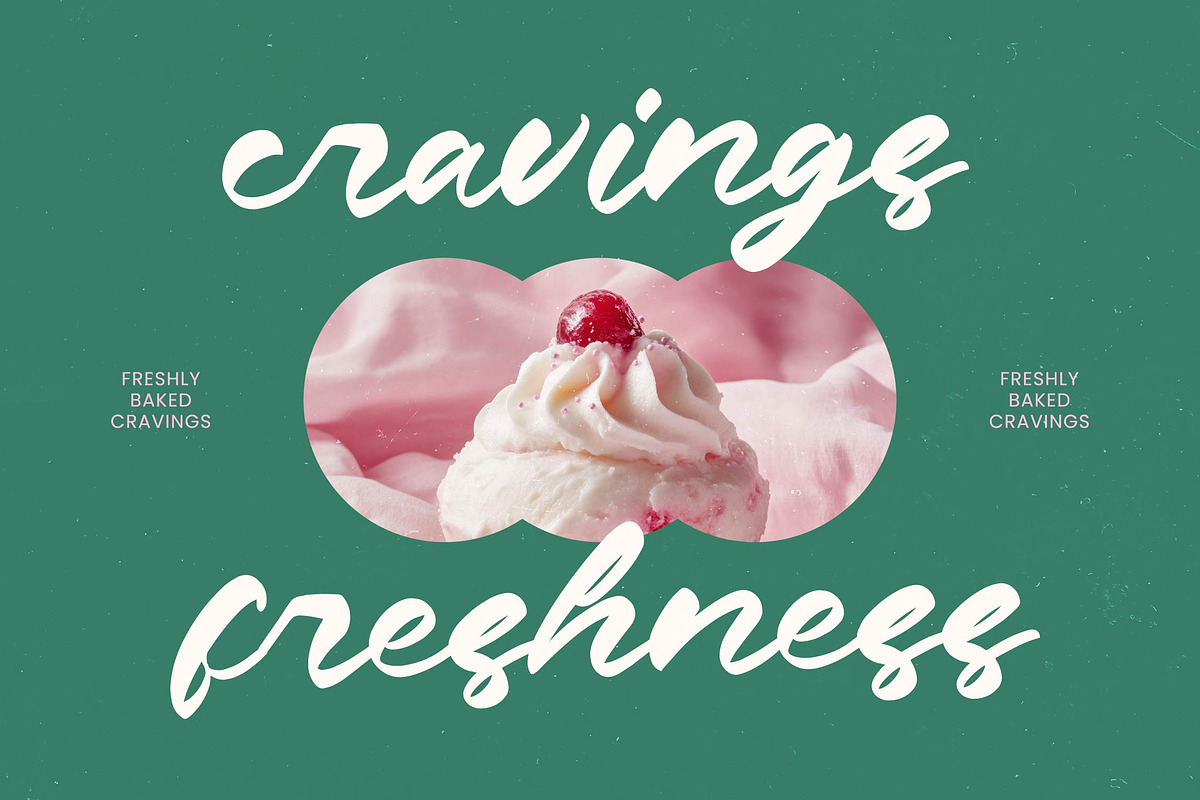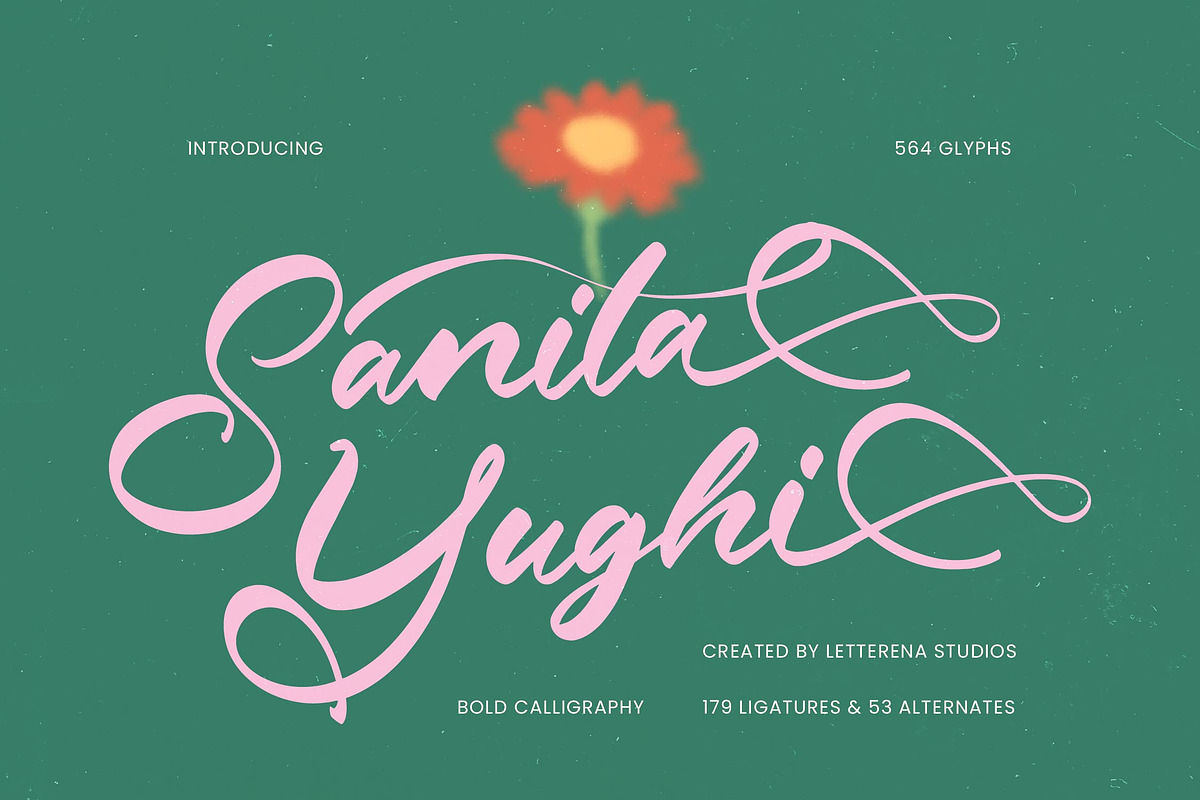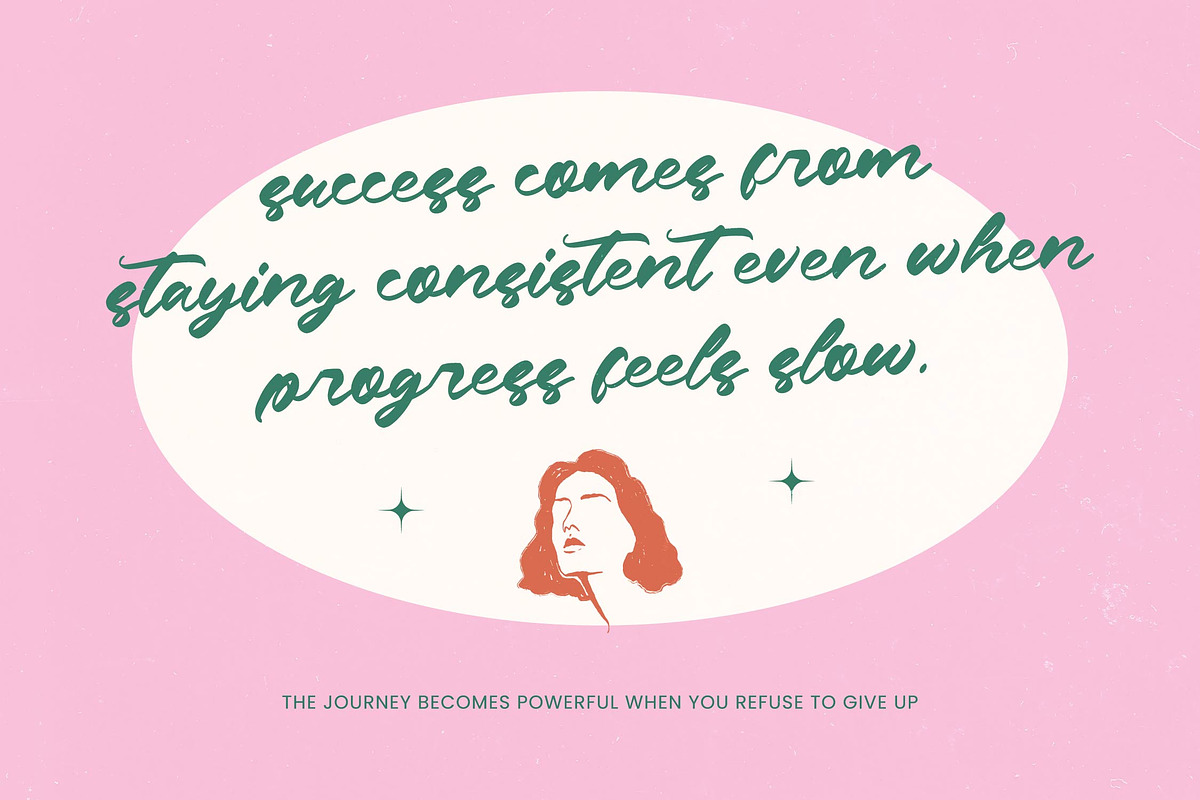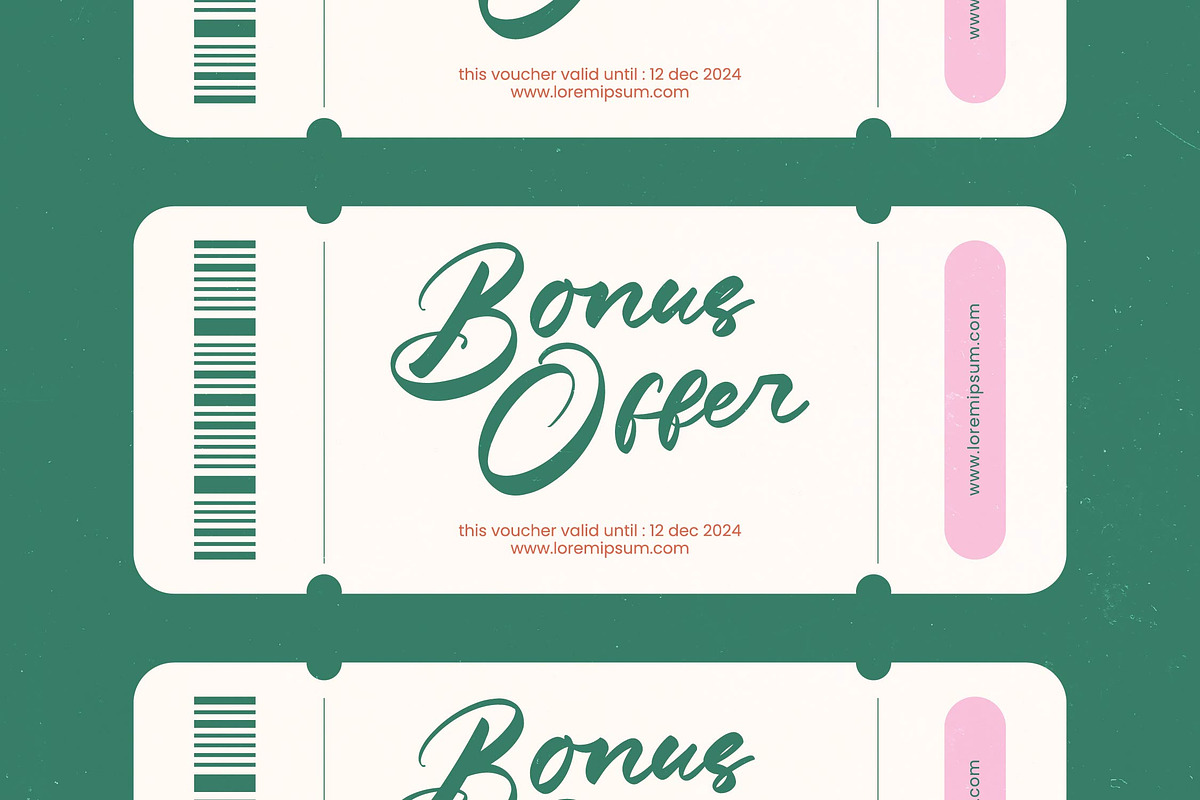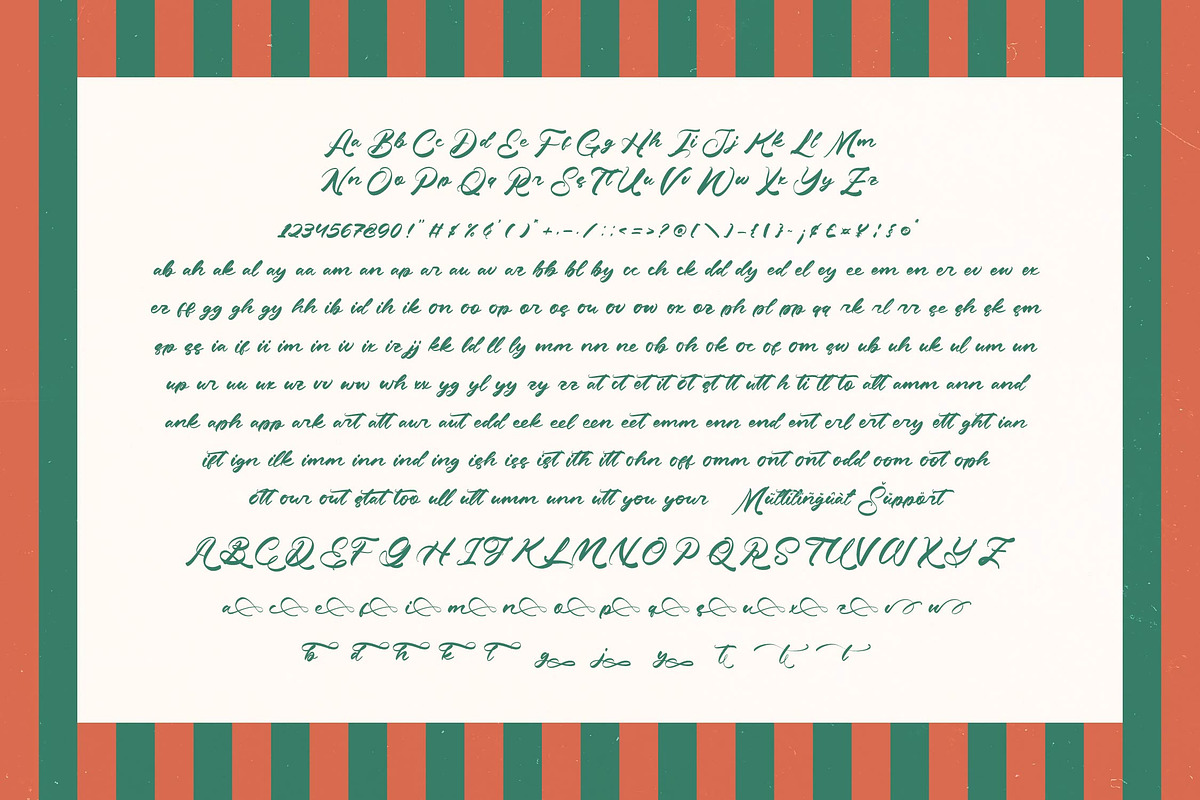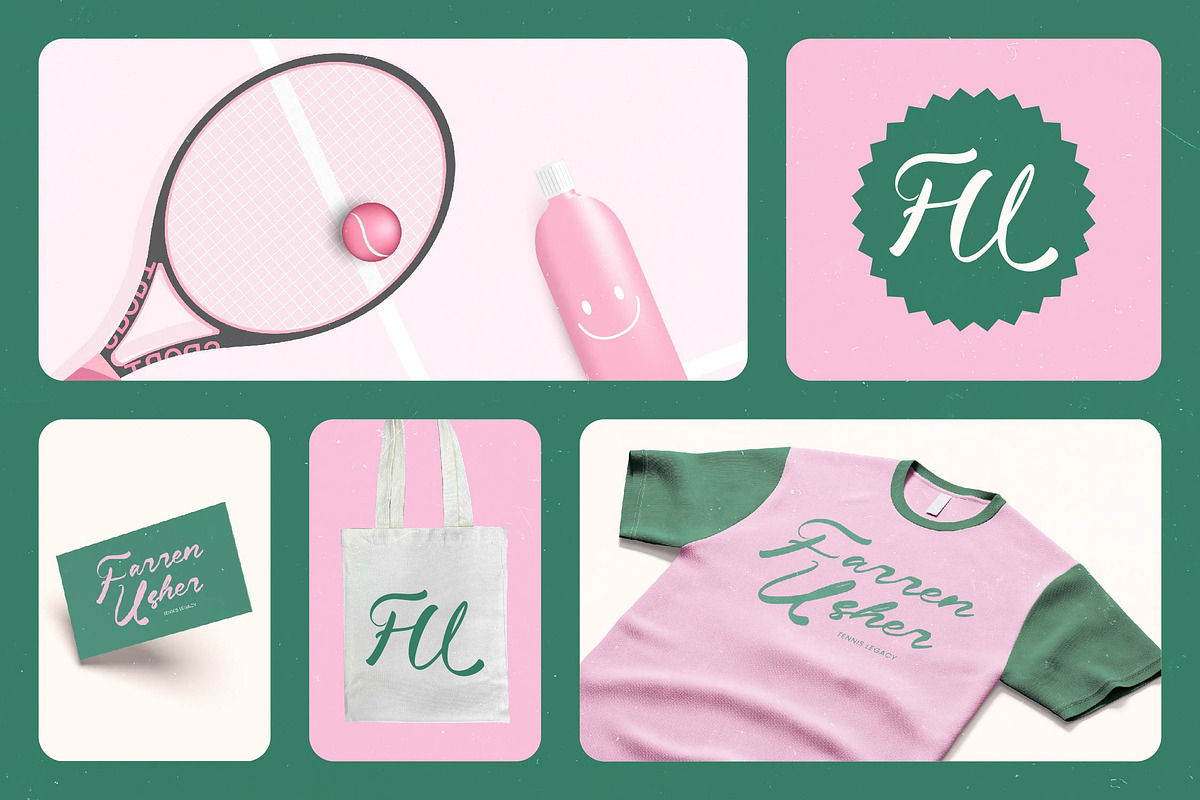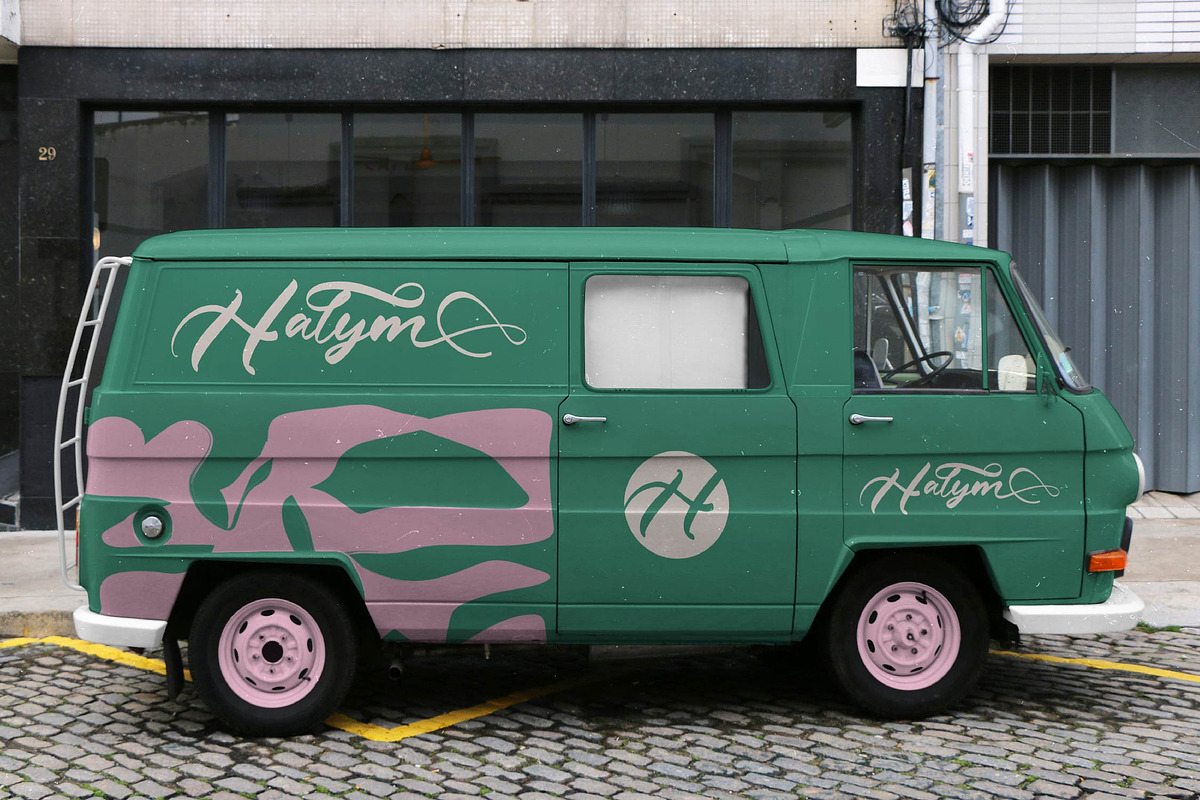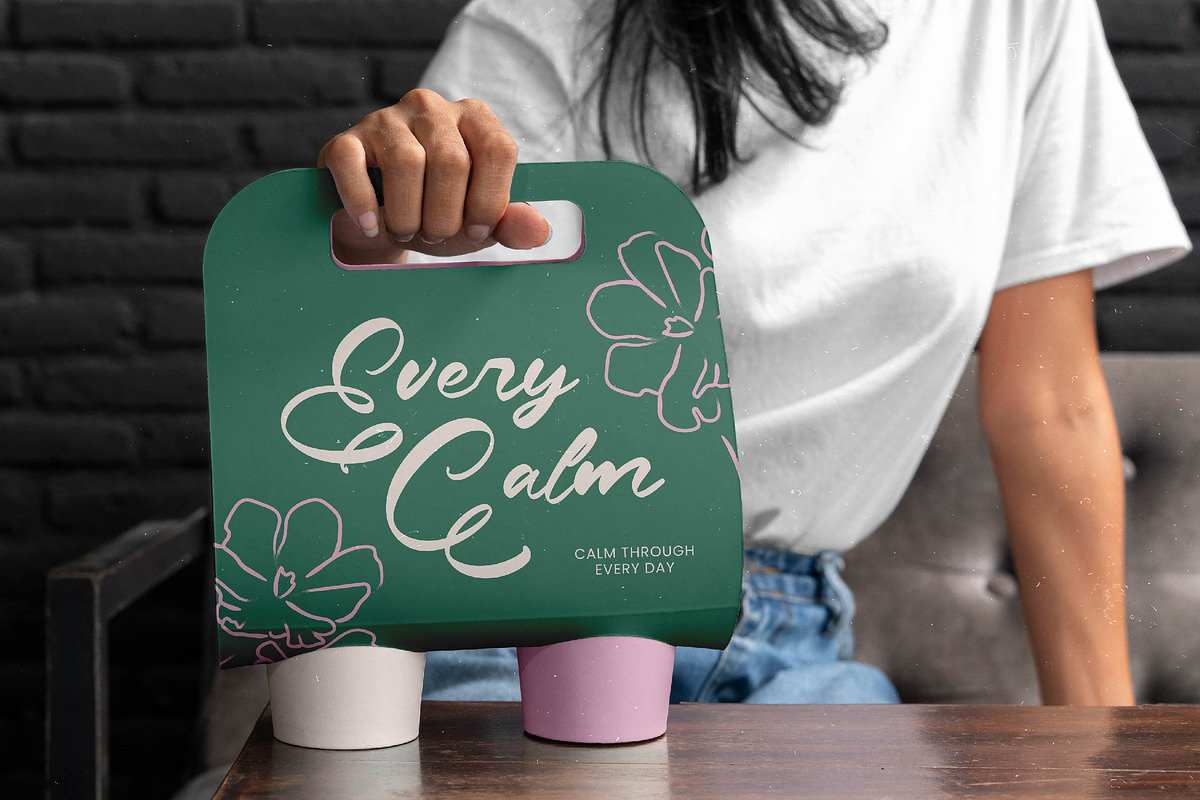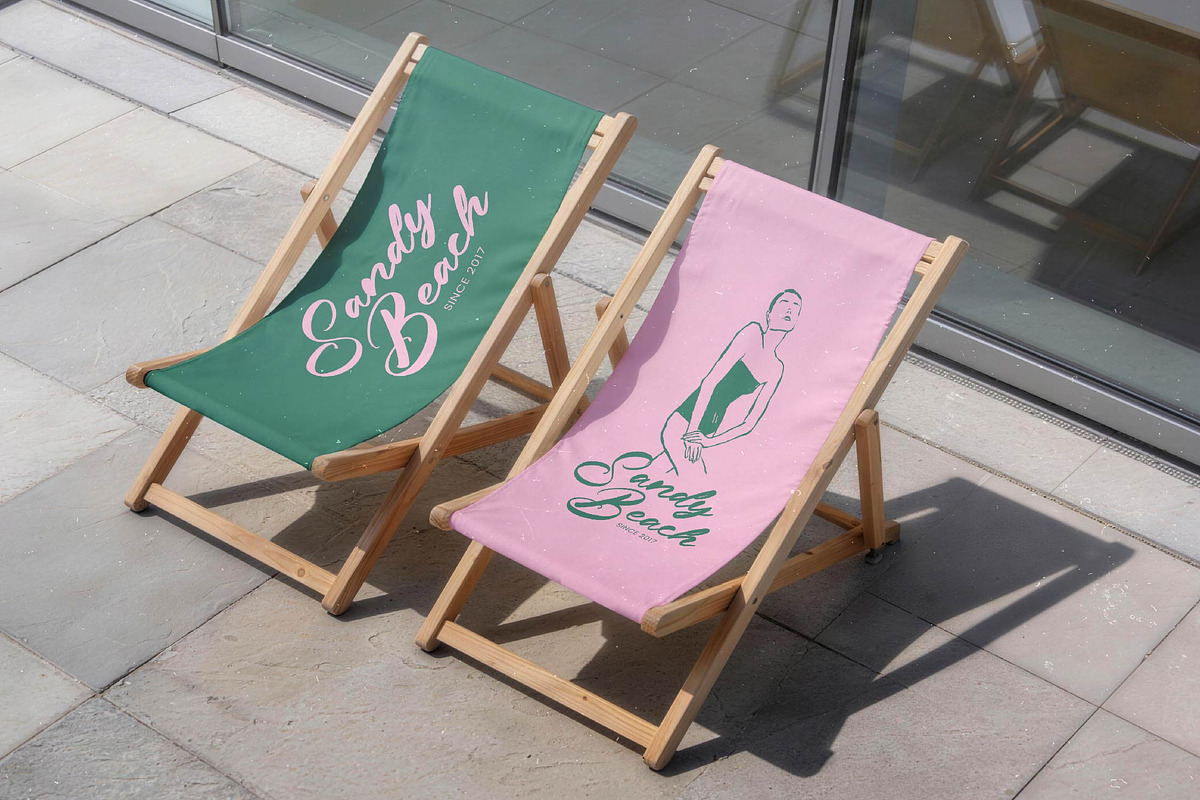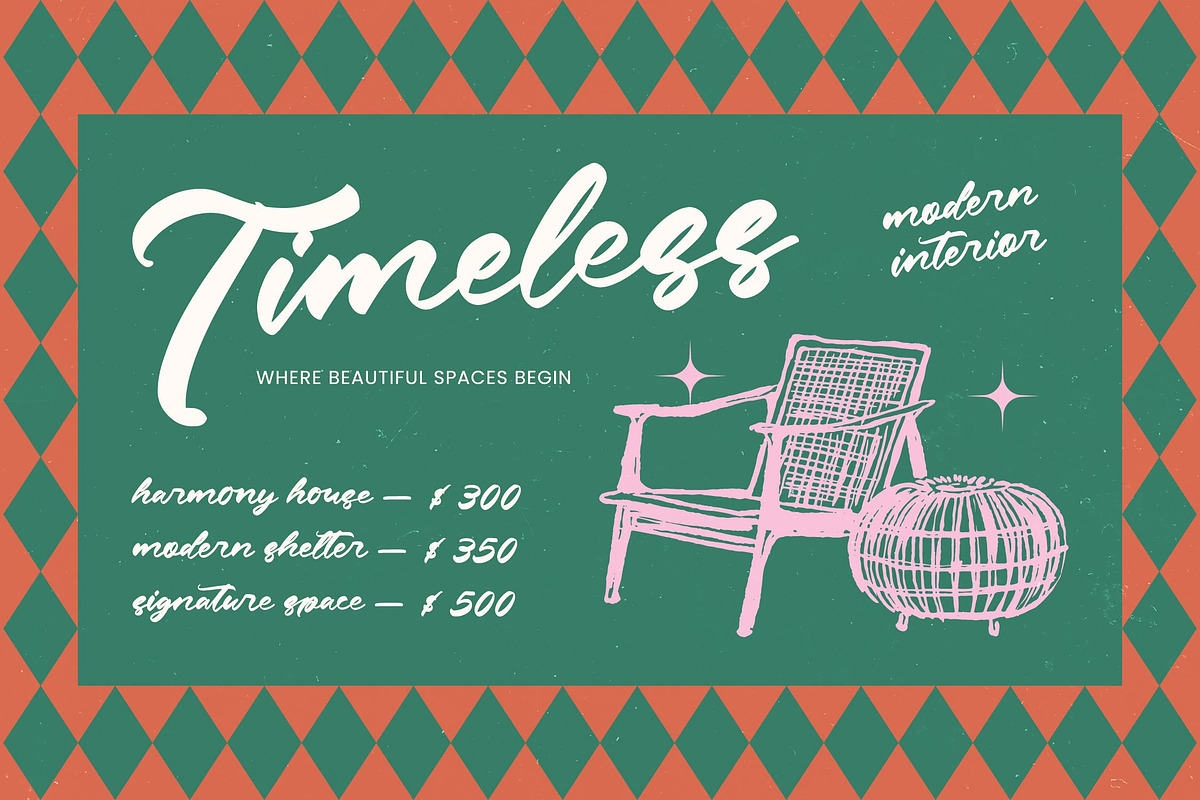
Sanita Yughi Bold Calligraphy
Sanita Yughi - Bold Calligraphy
Elevate your creative vision with a typeface that embodies sophisticated movement and organic energy. Sanita Yughi - Bold Calligraphy is a masterclass in expressive script design, blending high-impact weight with the delicate flow of artisan craftsmanship. Its fluid, sweeping strokes create a rhythmic harmony that commands attention while maintaining a refined, high-end aesthetic perfect for modern visual storytelling.
Precision meets artistic flair in every stroke of this masterfully crafted collection, offering unparalleled depth for designers. Boasting an impressive 564 glyphs, Sanita Yughi - Bold Calligraphy provides a wealth of dynamic ligatures and stylistic alternates that ensure a truly custom, hand-lettered feel. This technical richness allows for seamless transitions and unique character combinations that breathe life into any static layout or digital composition.
Break geographical barriers and connect with a diverse global audience effortlessly through superior typographic engineering. With its extensive multilingual support, Sanita Yughi - Bold Calligraphy adapts seamlessly across global markets, making it incredibly versatile for international projects. This ensures that your brand’s voice remains consistent and professional, regardless of the linguistic landscape or regional requirements.
Redefine the identity of your next premium project with unmatched typographic elegance and commercial appeal. Sanita Yughi - Bold Calligraphy is the ideal application for luxury branding, premium packaging, and editorial design, where a touch of human connection is paramount. It is perfect for creating standout wedding stationery, high-end logos, and social media content that requires a bold yet graceful presence.